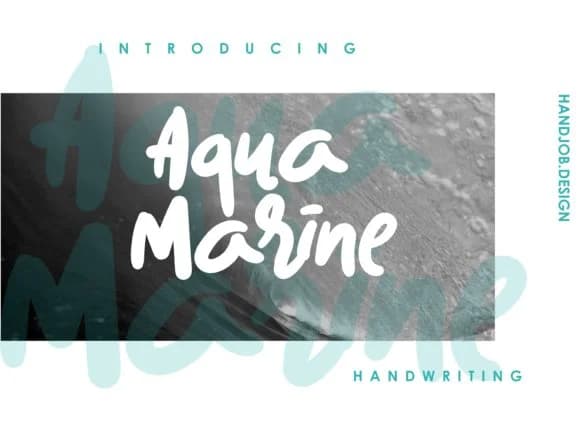
Aqua Marine, designed by Hdjs.design, captures the fluid, undulating energy of ocean waves through its bold script letterforms. The flowing strokes and dynamic character shapes create movement that feels organic and naturally gestural, never stiff or overly polished. These letterforms carry weight and substance, meaning they read clearly even when scaled large for display use, or layered as accent text alongside more neutral typefaces.
The font's water-inspired personality makes it ideal for wedding invitation suites, artisanal skincare and cosmetic product labels, craft beverage packaging, and contemporary social media graphics that need a hand-drawn, approachable quality without sacrificing sophistication. Because of its visual presence, it maintains impact whether printed small or projected large, and works equally well as a standalone statement or in combination with other fonts. That balance between personality and clarity gives it range across different mediums and design scenarios.
Aqua Marine suits projects where expressive character matters as much as readability. Designers working on personal branding, small batch product labels, or any design that needs warmth and movement will find real utility here. Pick it up on Creative Fabrica and bring some flowing energy to your next project.
Aqua Marine Font is a script font that shines as a display or heading face. Pair it with a clean sans-serif or serif font for body text β the contrast creates a clear hierarchy while the two styles stay balanced and easy to read.